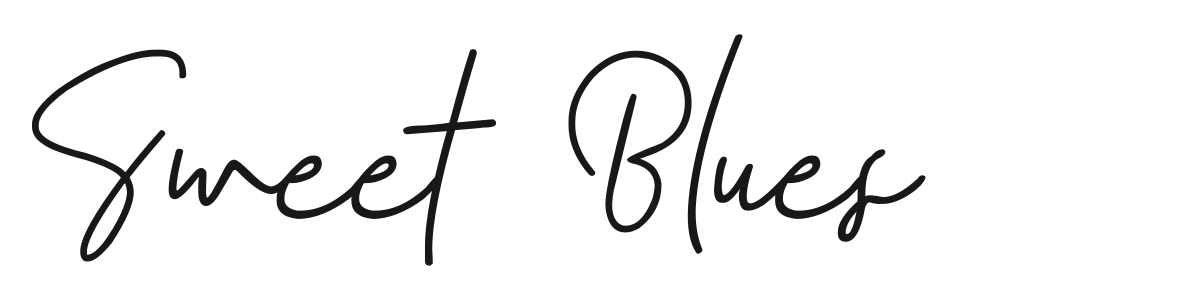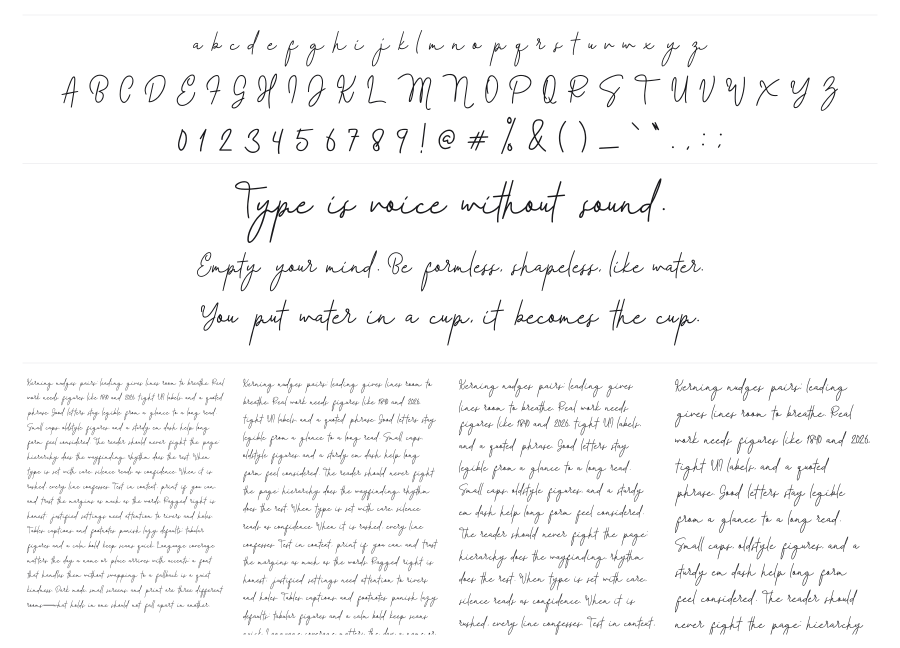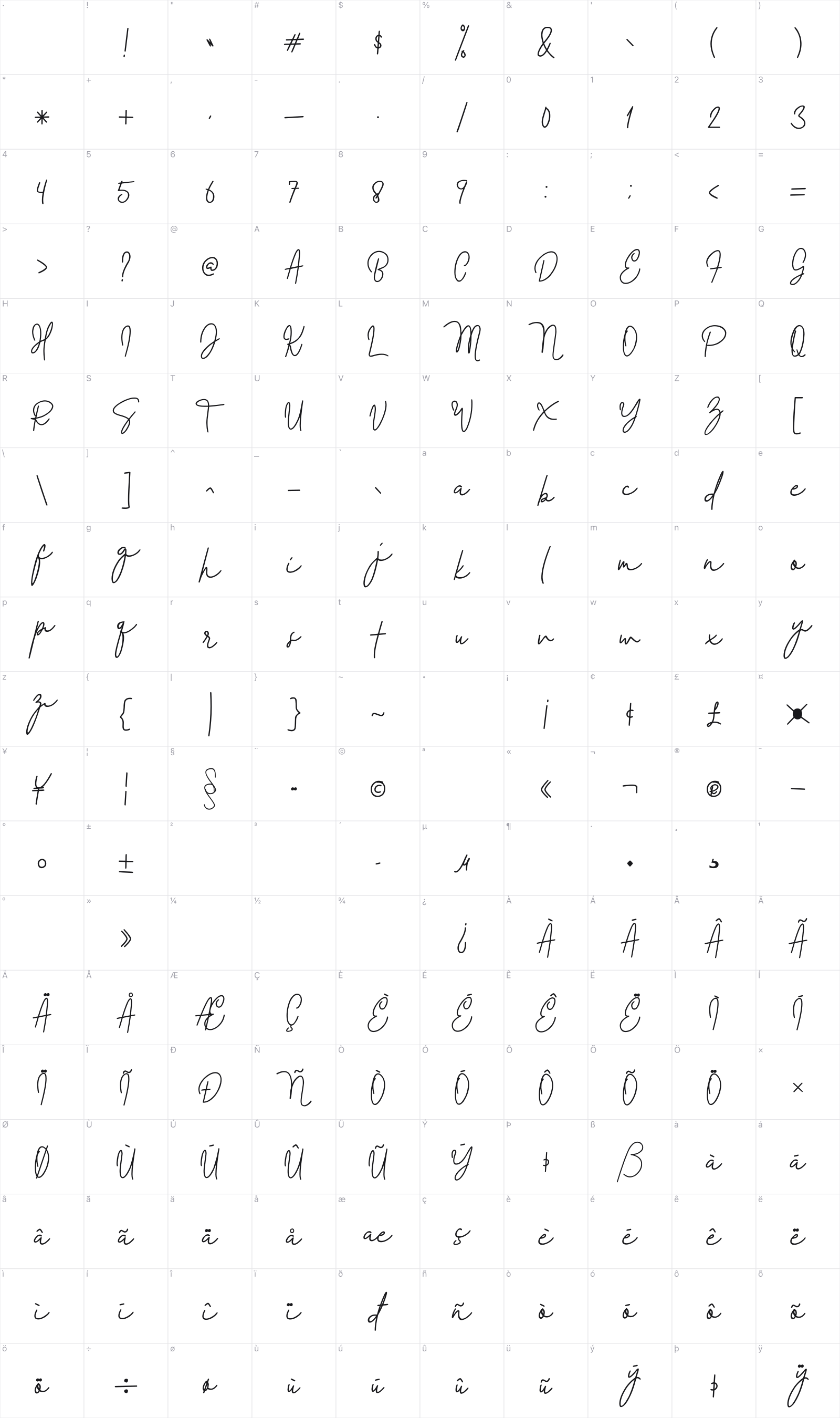
Sweet Blues
Sweet Blues is a thin casual script with a loose, free-flowing handwritten quality. Long connecting strokes and subtle rhythm variation give it a natural, pen-written feel without tipping into formal calligraphy. It works well at large sizes for logos, packaging, and lifestyle branding where a light, personal touch is needed.